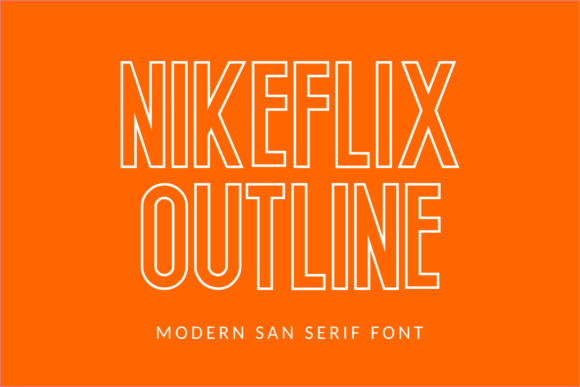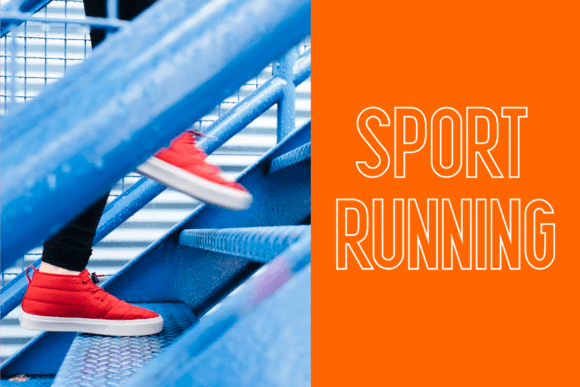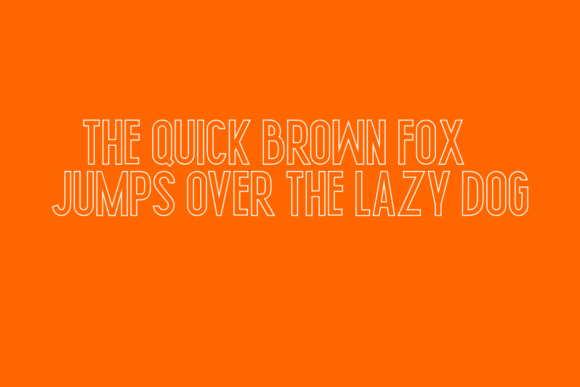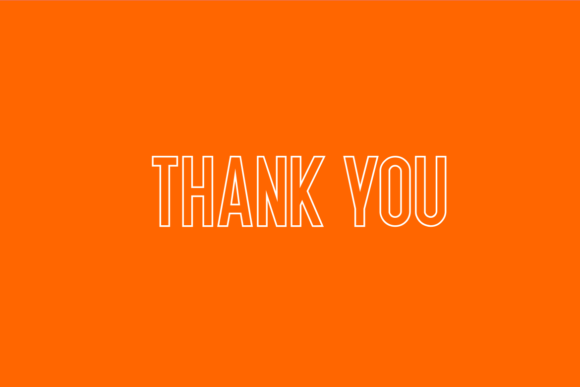
Nikeflix Outline Font: A Bold Display Font for Sport & Logo Design
About the Nikeflix Outline Font
Step up your design game with Nikeflix Outline Font, a font that exudes confidence and style. Nikeflix Outline is a cool, outlined display font. This font is suitable for designs such as t-shirts, sportswear, logos, advertisements, clothing, and more.
Nikeflix Outline’s strong, graphic nature makes it ideal for headlines, logos, and short, impactful statements in posters and advertising. Its bold personality is well-suited to brands focused on sport, streetwear, or a youthful, energetic aesthetic. Avoid using it for body copy or extended text; its outlined style can hinder readability at smaller sizes.
Pairing Nikeflix Outline with a clean sans-serif like Open Sans for body text creates a dynamic contrast, balancing the display font’s boldness with a legible, neutral companion. Alternatively, a geometric sans-serif like Futura would provide a modern, sophisticated pairing, emphasizing Nikeflix Outline’s graphic qualities. For a more playful feel, a rounded sans-serif could be considered.
The font exudes a confident, modern energy. It’s best suited to projects needing a strong visual punch and a sense of dynamism. Projects emphasizing speed, action, or a youthful rebellion would benefit greatly from its striking character.
Nikeflix Outline Font Usage Examples
Nikeflix Outline Font Example